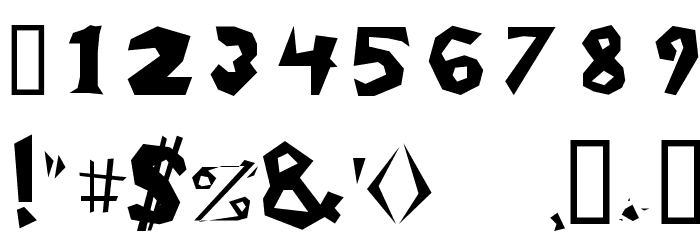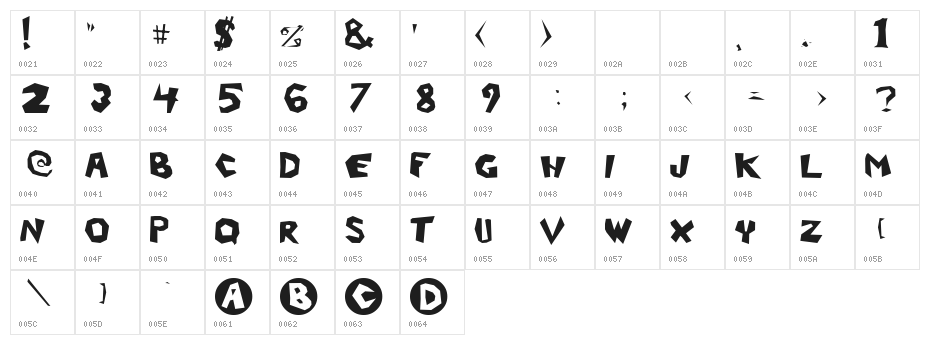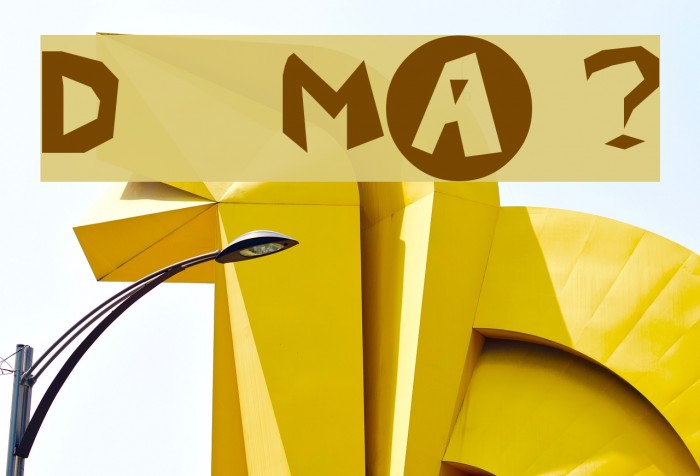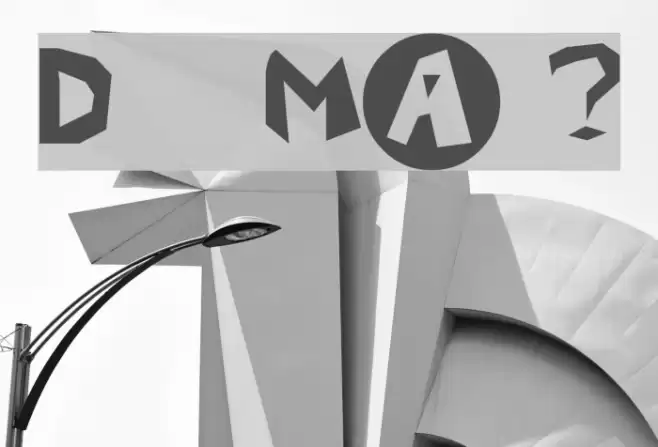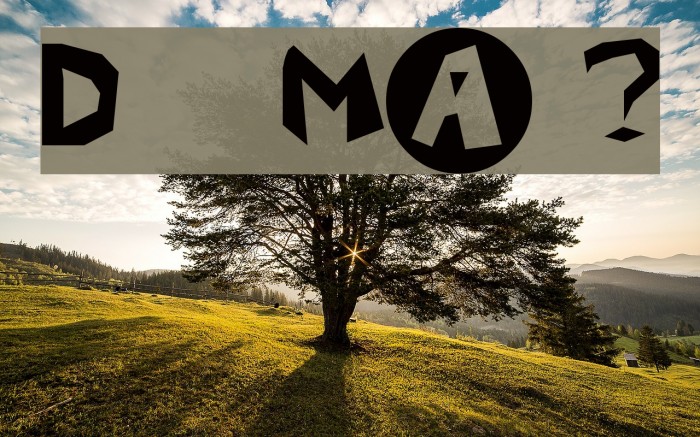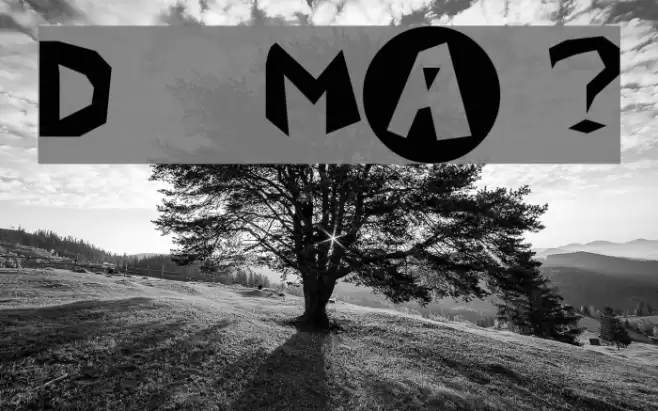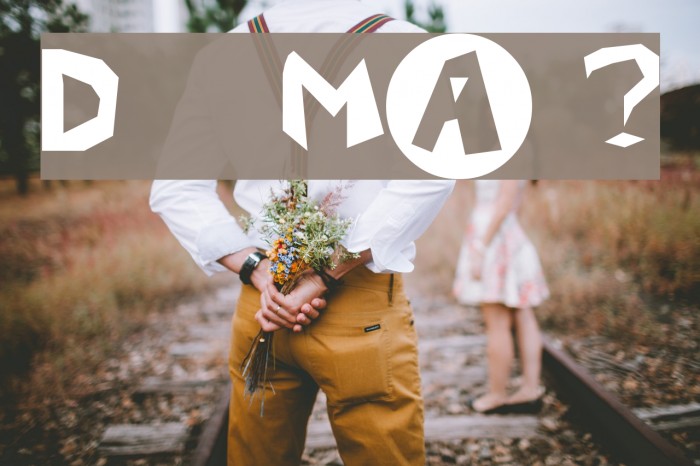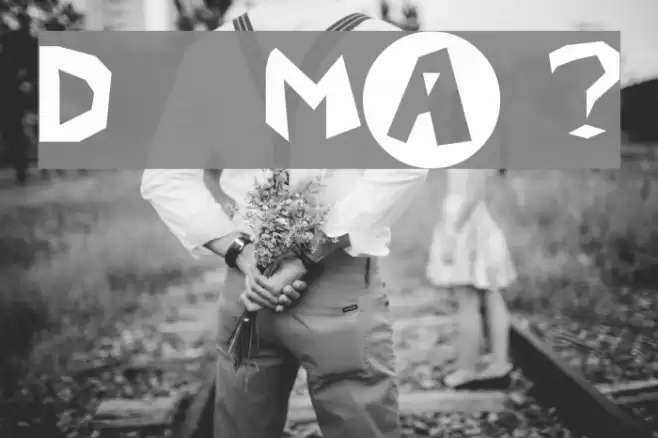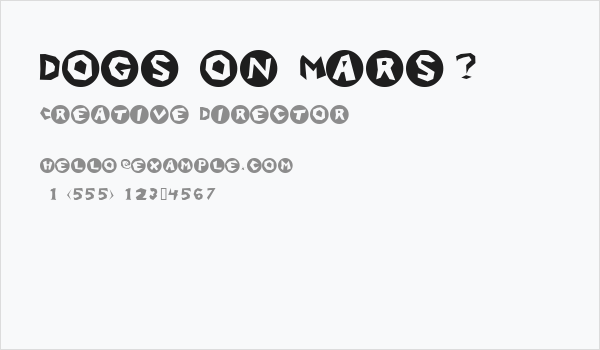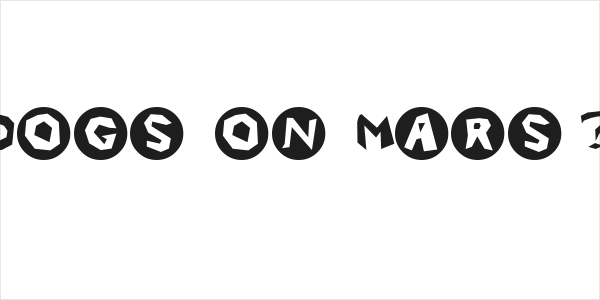
Dogs on Mars? Font
Dogs on Mars? Description
This font features a bold, angular design with a distinctly futuristic and playful aesthetic. The uppercase letters are characterized by sharp, geometric shapes that give a sense of movement and energy. The lowercase letters maintain the same angular style, creating a cohesive look across the alphabet. The numbers and special characters follow the same design principles, ensuring consistency throughout. The font's unique style makes it stand out, with each character appearing as if it is crafted from cut paper or metal, adding a tactile dimension to its visual appeal.
| Overall Style | Futuristic, Playful |
| Proposed Projects | Ideal for sci-fi themed projects, video game titles, posters, and branding that requires a modern, edgy look. |